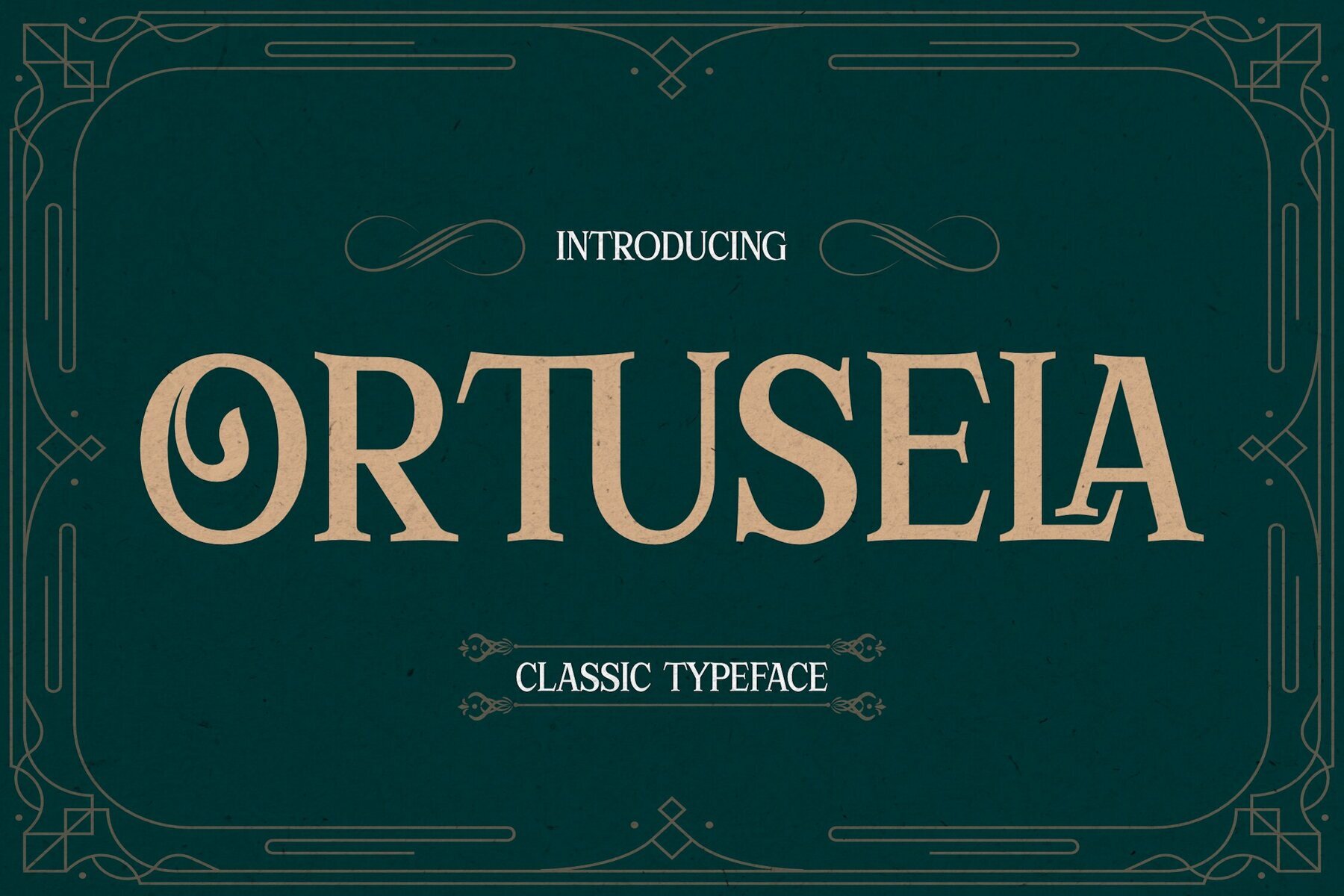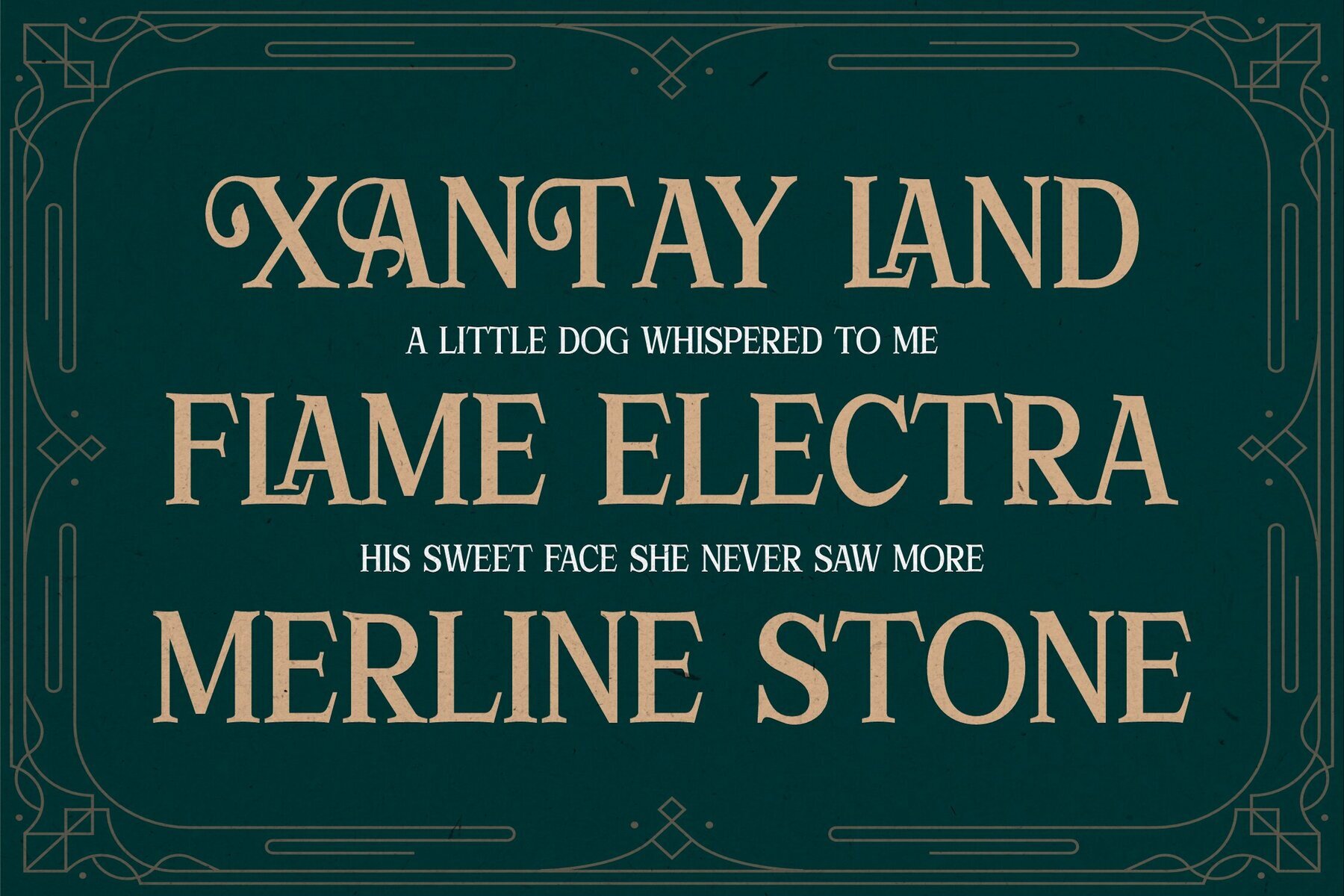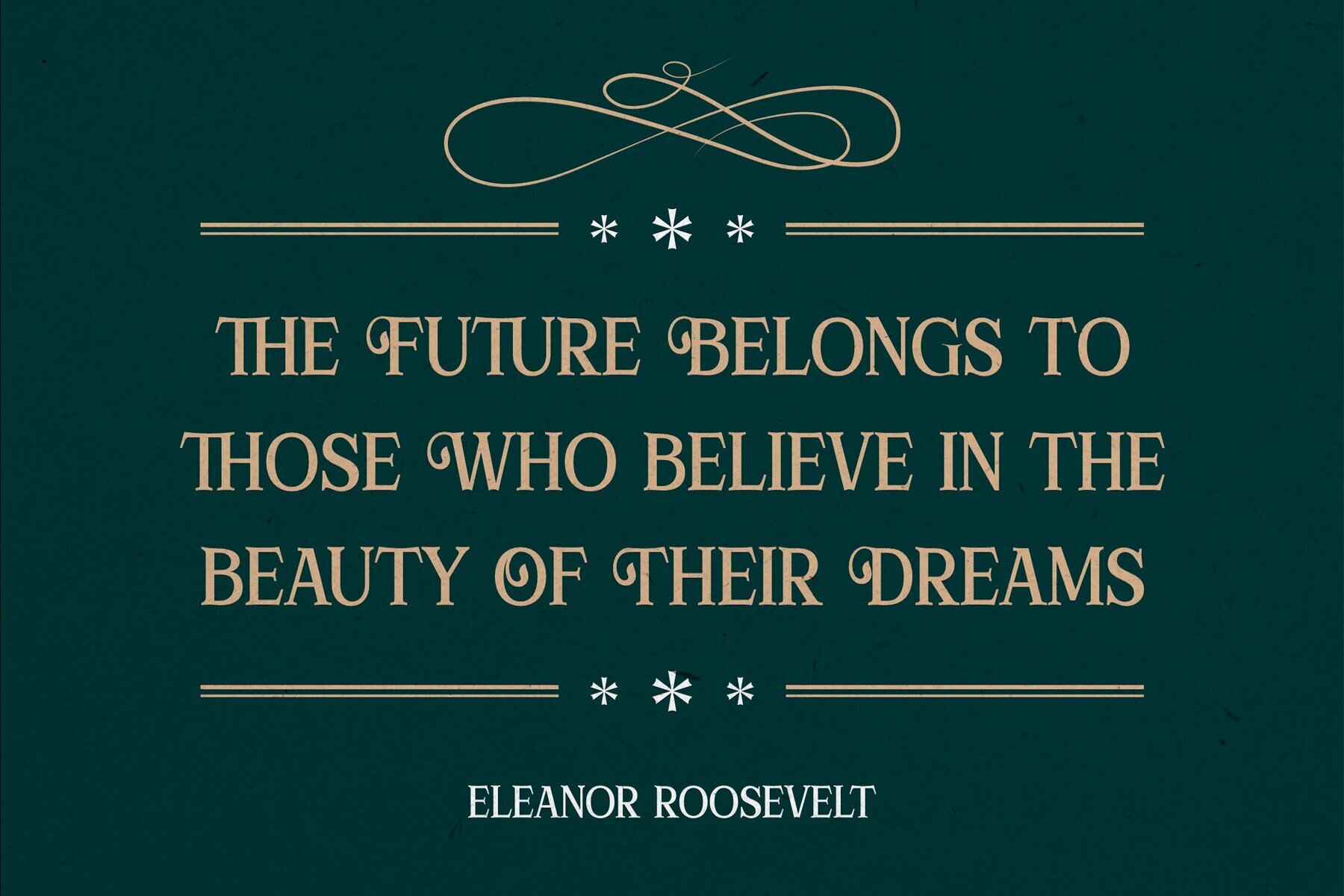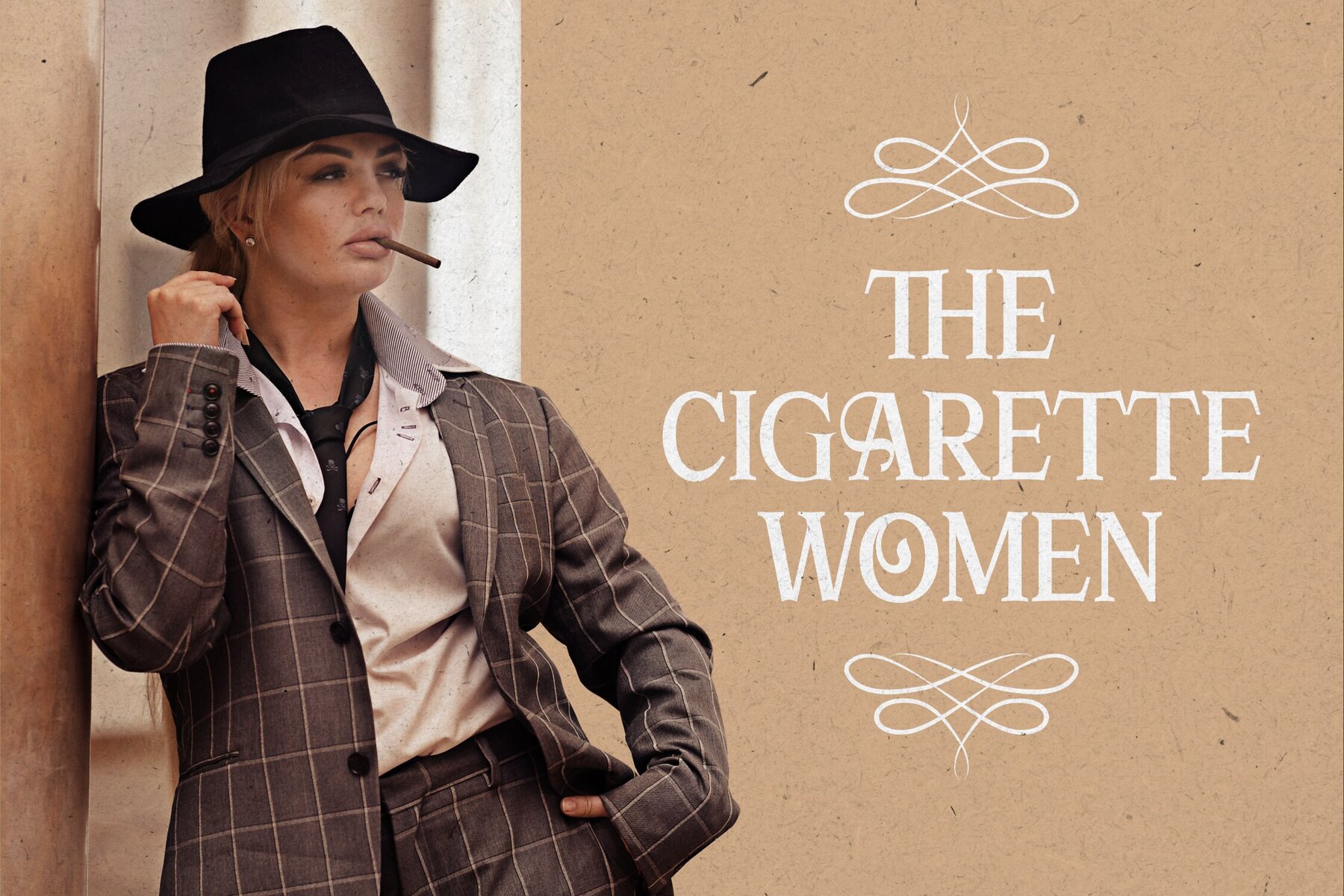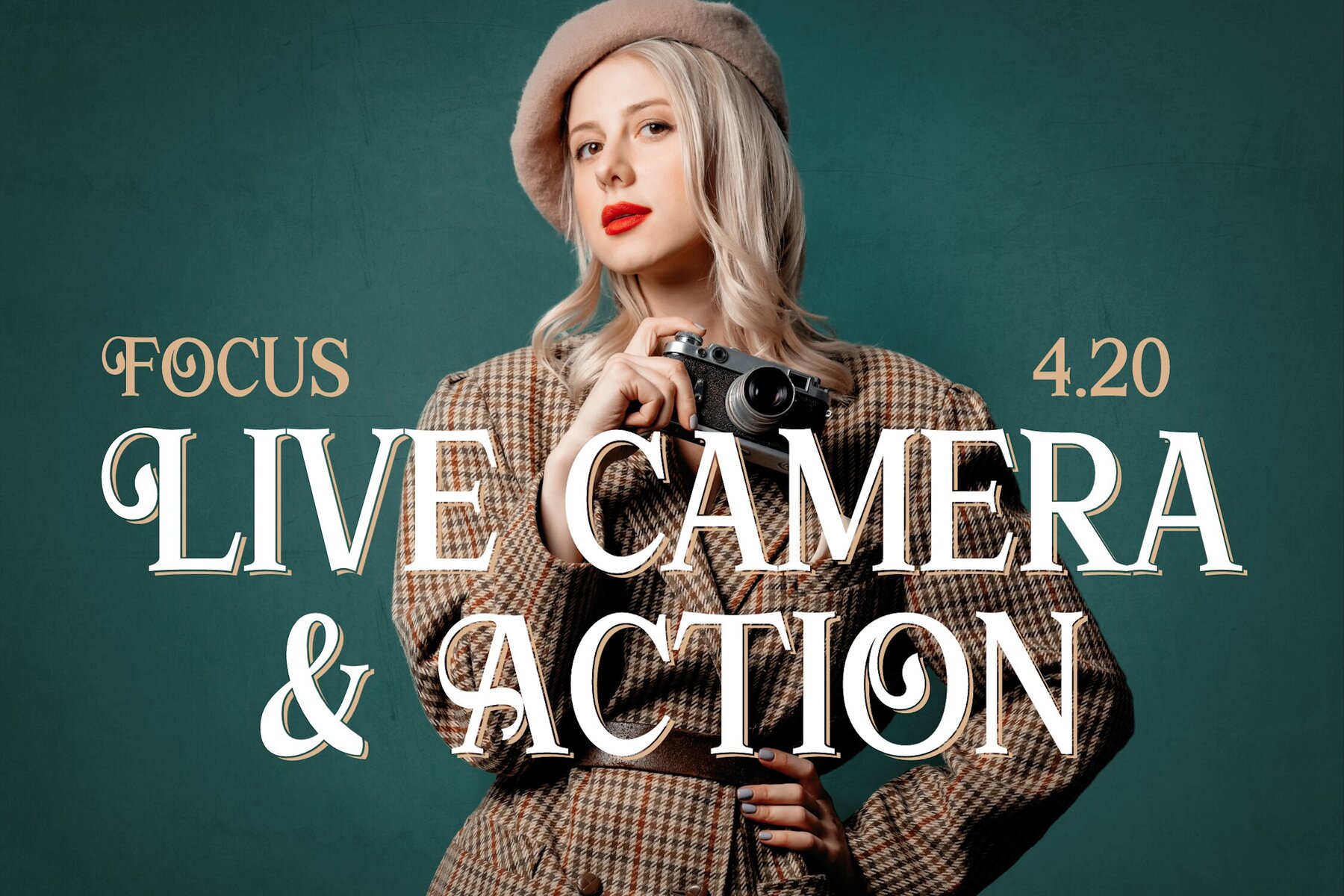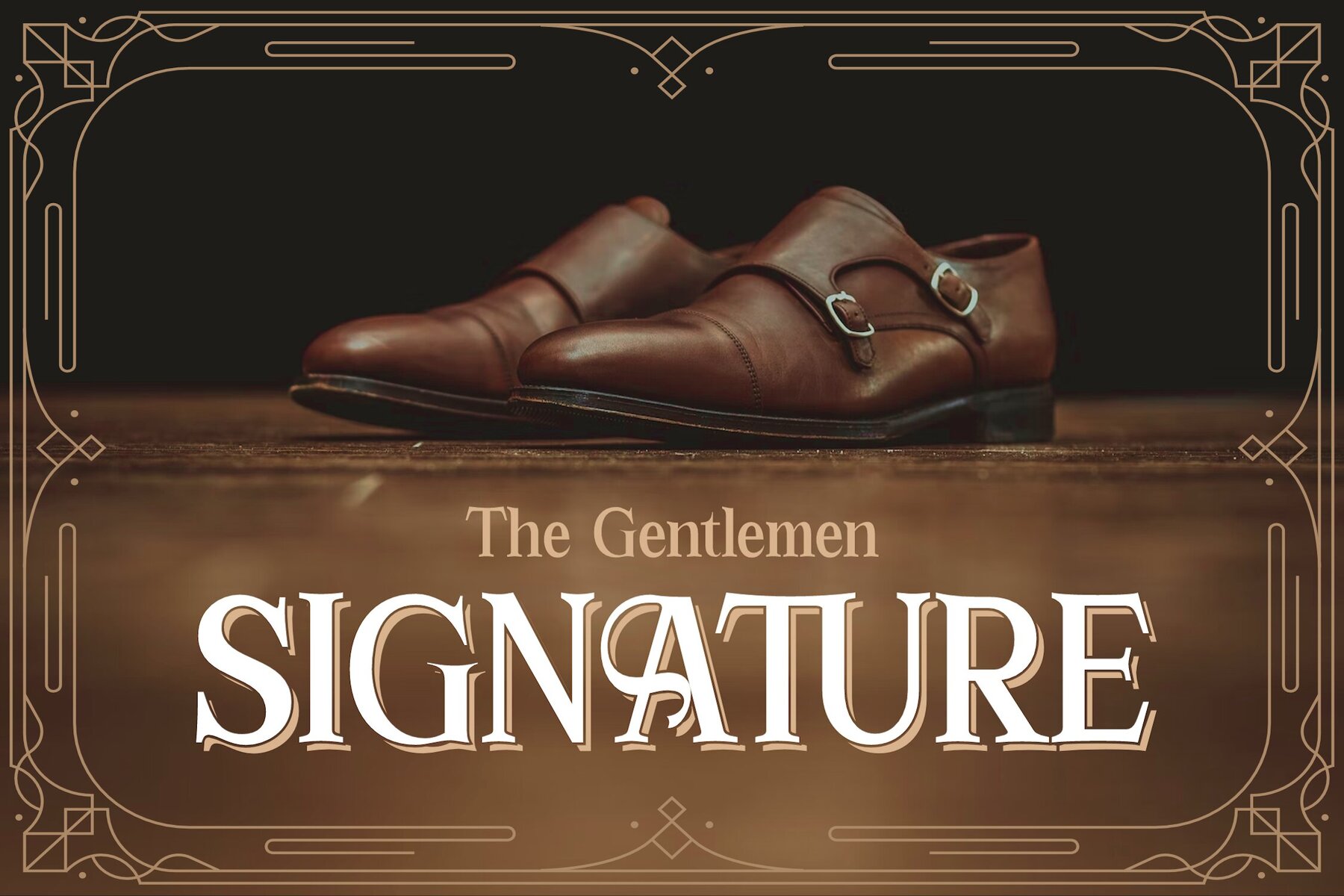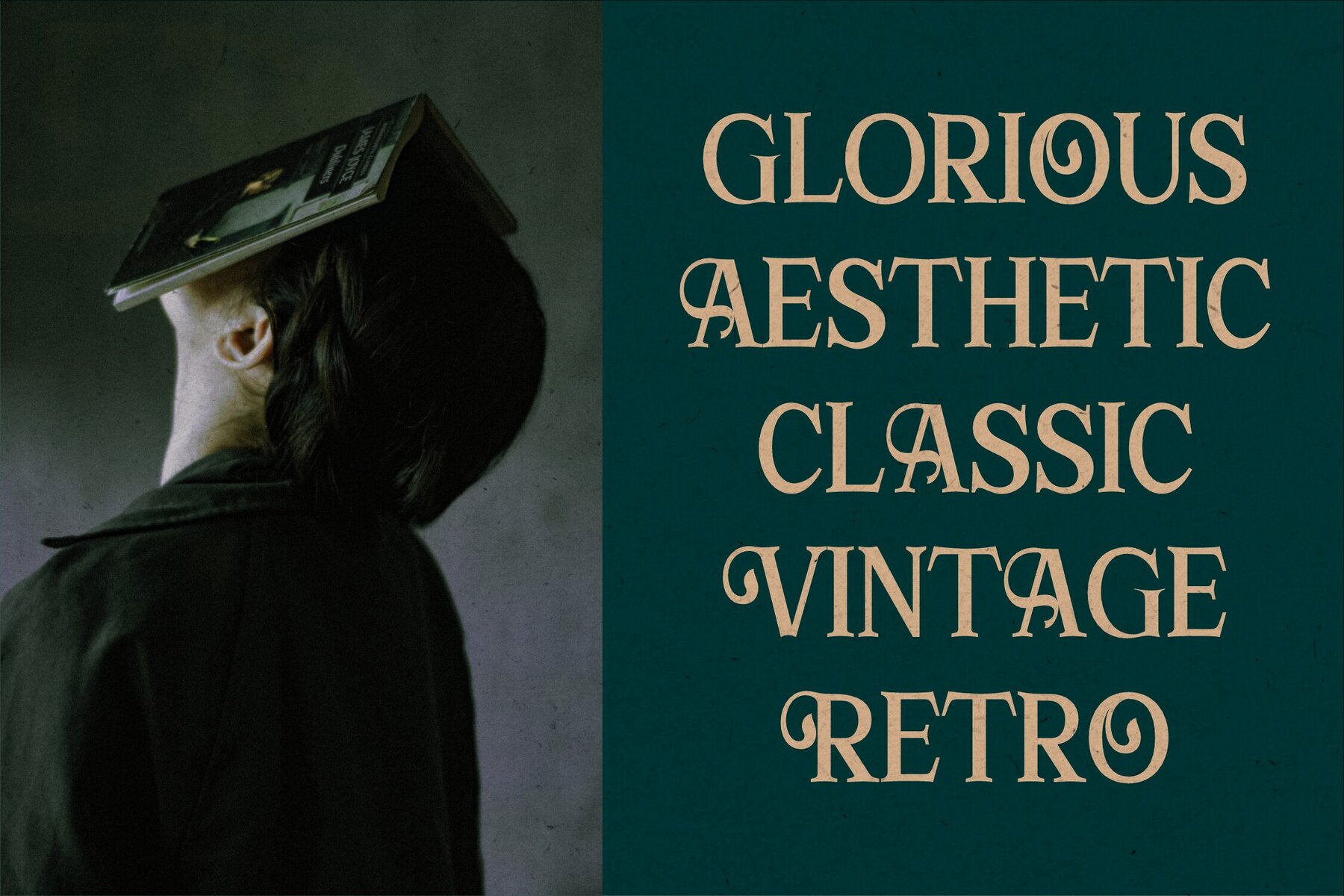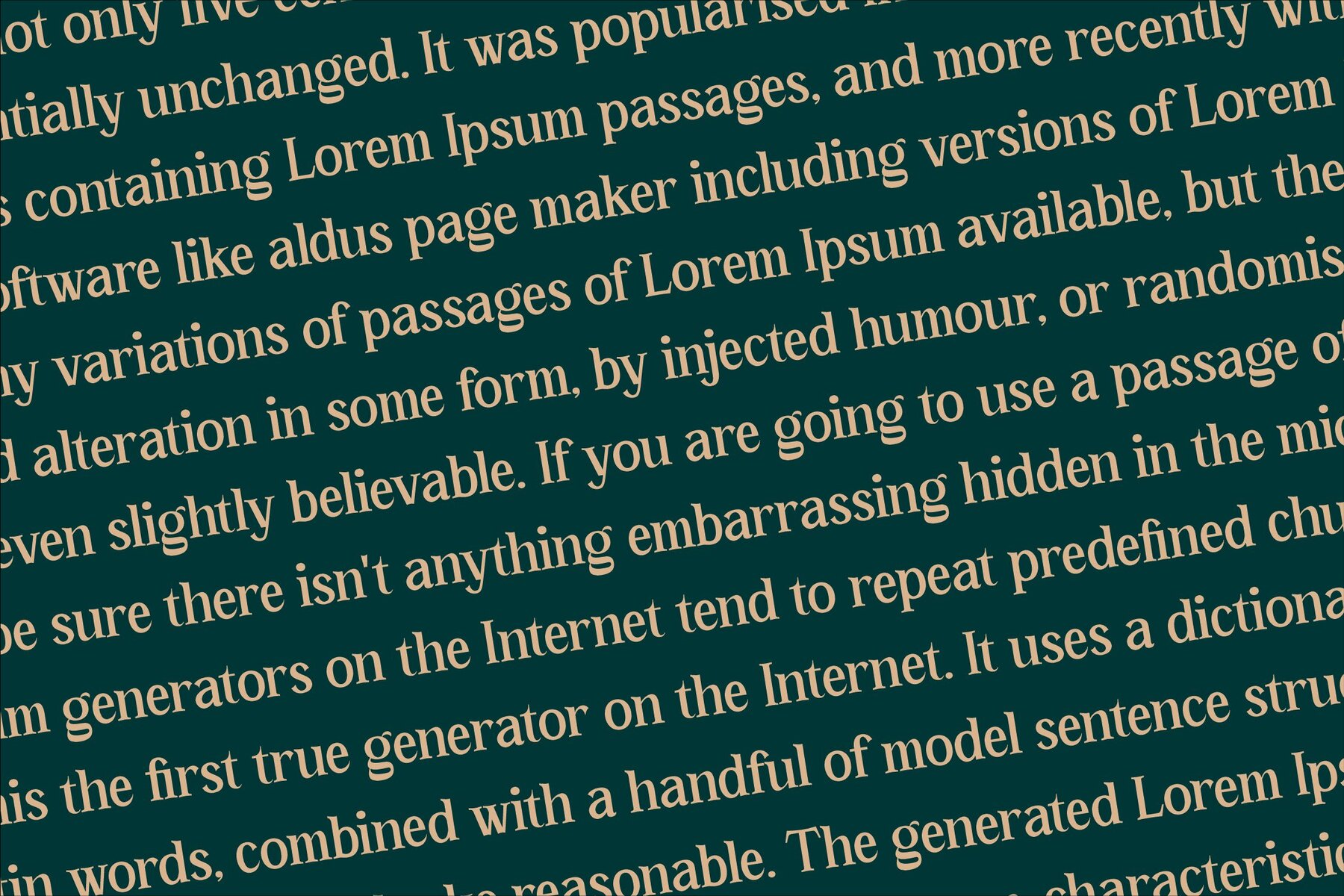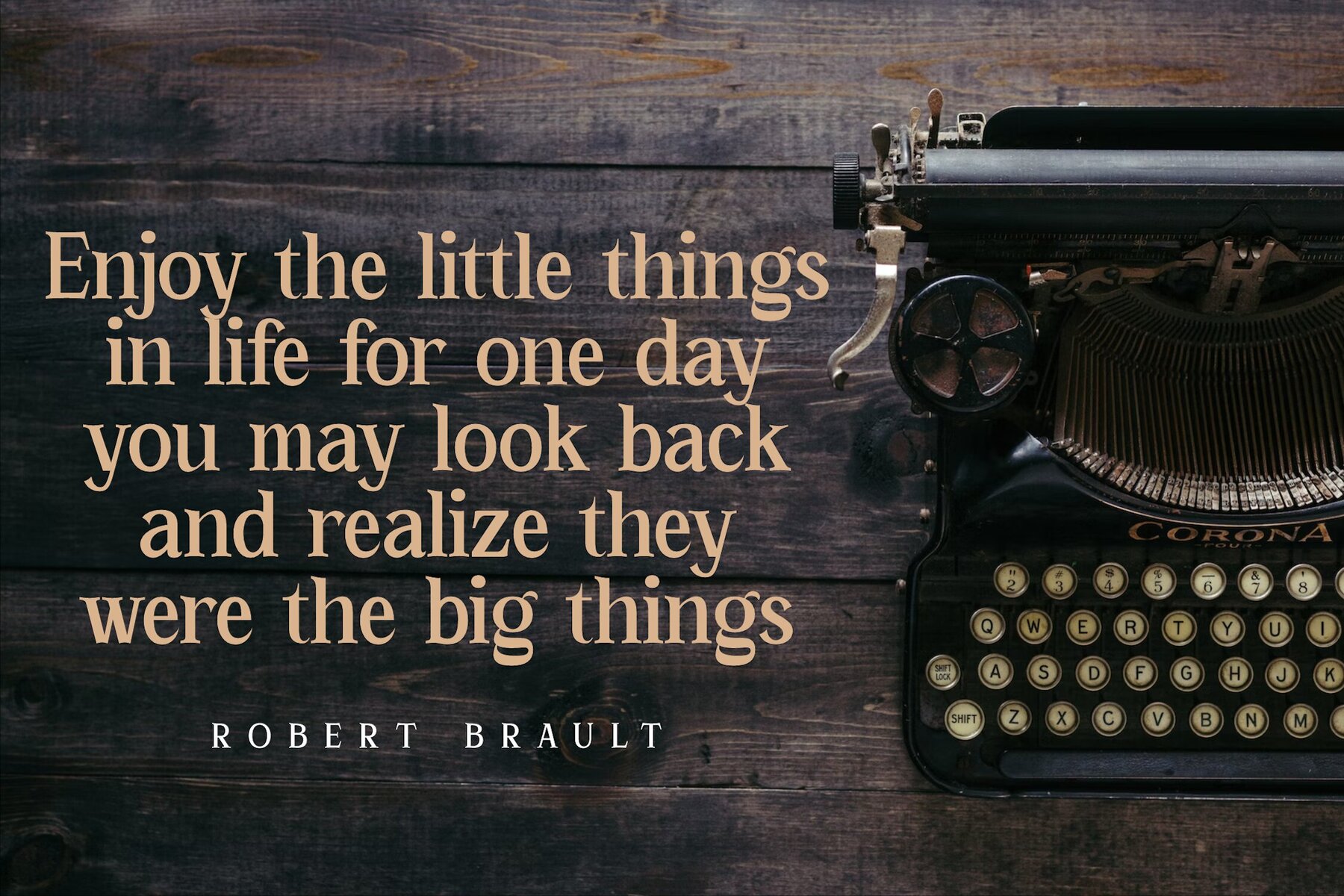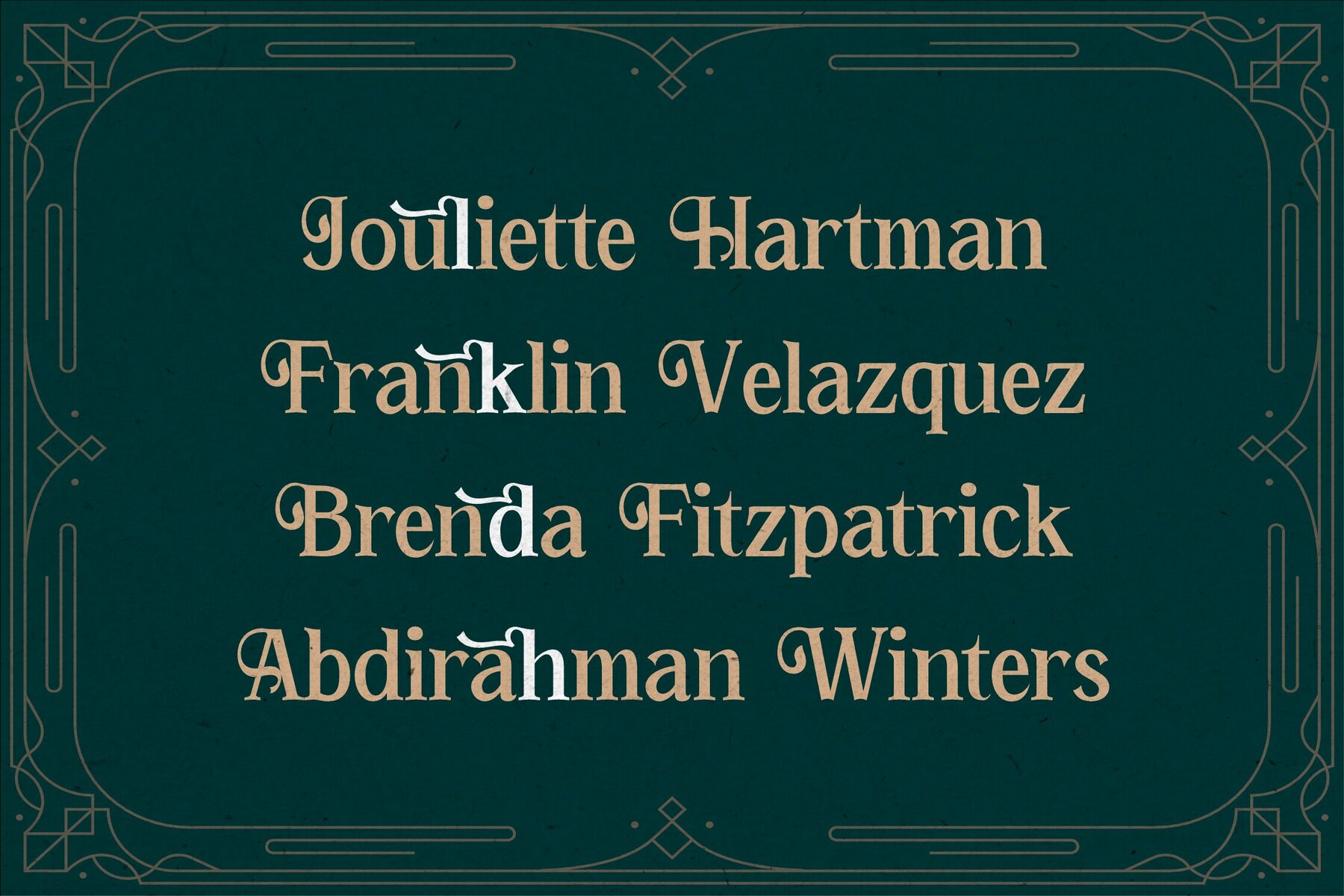
ORTUSELA Font
Discover Ortusela Typeface by Storytype Studio, a masterpiece blending modernity with classic elegance. This unique serif typeface adds a sophisticated touch to luxury logos, book or movie titles, fashion brands, magazines, clothing designs, and more. With its distinct style, Ortusela offers a refined aesthetic that stands out beautifully in any design project.Ortusela Typeface
Typeface Features